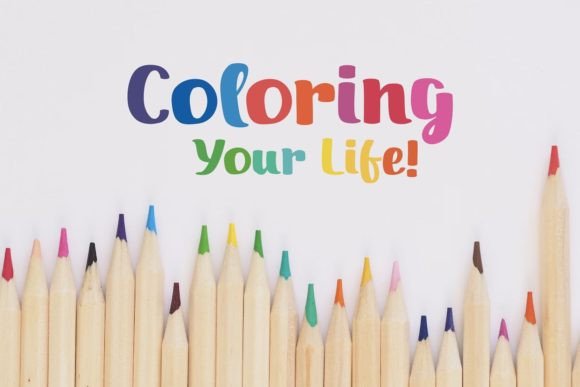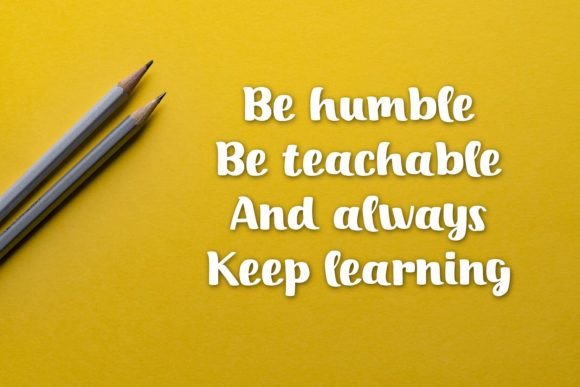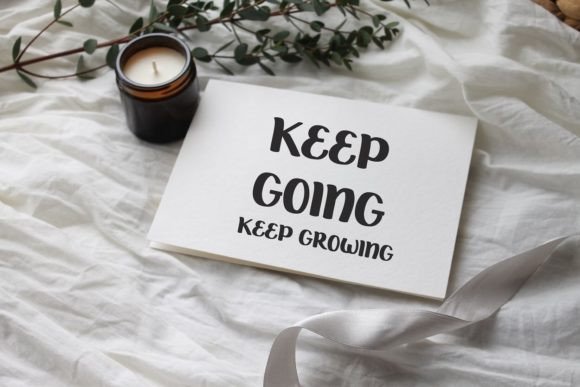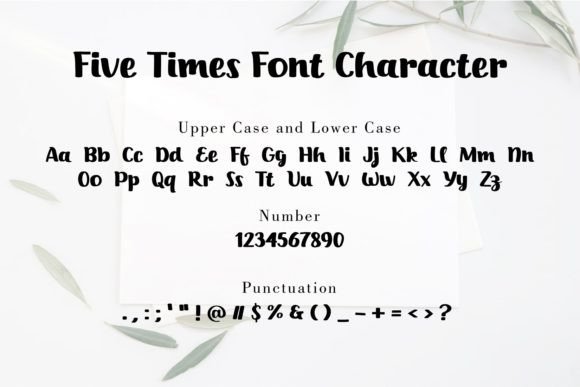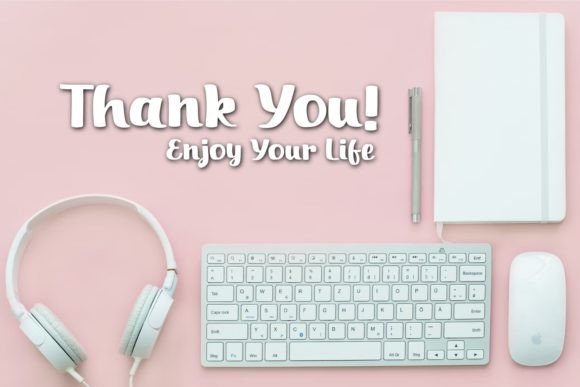
Introducing Five Times Font: The Perfect Handwritten Font for Your Creative Projects
Are you a designer or crafter looking for a unique and fun handwritten font to elevate your creative projects? Look no further than Five Times Font! This charming font is perfect for adding a personal touch to your branding projects, logos, wedding designs, social media posts, advertisements, product packaging, product designs, labels, photography, watermarks, invitations, stationery, and any other project that needs a handwriting taste.
What Makes Five Times Font So Special?
Five Times Font is a carefully crafted handwritten font that exudes a sense of playfulness and sophistication. Its unique lettering style is reminiscent of handwritten notes and adds a touch of warmth and personality to any design. Whether you’re creating a logo, social media post, or wedding invitation, Five Times Font is sure to make your project stand out from the crowd.
Perfect for a Variety of Creative Projects
Five Times Font is an incredibly versatile font that can be used for a wide range of creative projects. Here are just a few ideas to get you started:
- Branding Projects: Use Five Times Font to create a unique and memorable brand identity that sets you apart from the competition.
- Logos: Create a custom logo that showcases your brand’s personality and style with Five Times Font.
- Wedding Designs: Add a touch of romance and whimsy to your wedding stationery, invitations, and decorations with Five Times Font.
- Social Media Posts: Use Five Times Font to create eye-catching social media posts that grab attention and engage your audience.
- Advertisements: Create effective and stylish advertisements that showcase your brand’s message with Five Times Font.
- Product Packaging: Add a personal touch to your product packaging with Five Times Font and make your products stand out on store shelves.
- Product Designs: Use Five Times Font to create unique and stylish product designs that showcase your brand’s personality.
- Labels: Create custom labels that add a touch of personality to your products with Five Times Font.
- Photography: Use Five Times Font to create beautiful watermarks that add a touch of elegance to your photos.
- Invitations: Create custom invitations that showcase your personal style with Five Times Font.
- Stationery: Add a touch of personality to your stationery with Five Times Font and make your correspondence stand out.
Why Choose Five Times Font?
So why choose Five Times Font for your creative projects? Here are just a few reasons:
- Unique and Handwritten: Five Times Font is a carefully crafted handwritten font that adds a touch of personality to any design.
- Versatile: Five Times Font can be used for a wide range of creative projects, from branding and logos to wedding designs and social media posts.
- Easy to Read: Five Times Font is clear and easy to read, making it perfect for use in a variety of contexts.
- High-Quality: Five Times Font is a high-quality font that is designed to deliver exceptional results.